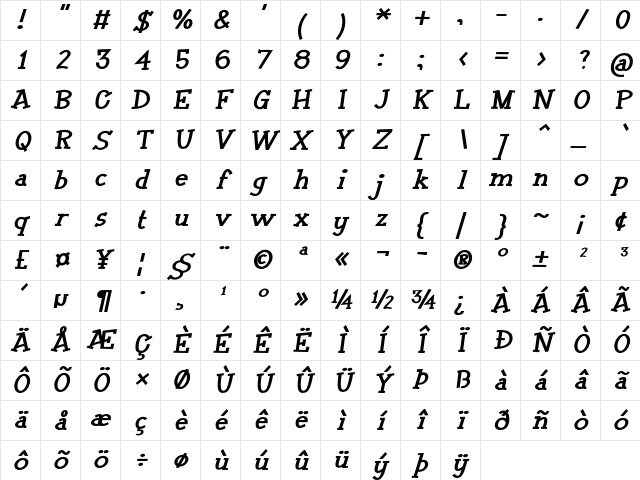
Dunkel Meister Bold Italic
Design Context for Dunkel Meister
Dunkel Meister is a composed and adaptable typeface that performs quietly and consistently across a wide range of design contexts. The slanted form adds forward momentum and visual energy. Its bold stroke weight gives it real presence on the page.
Pro Tip: Use Dunkel Meister for emphasis, pull quotes, and subheadings where its slanted energy can add rhythm to the layout.